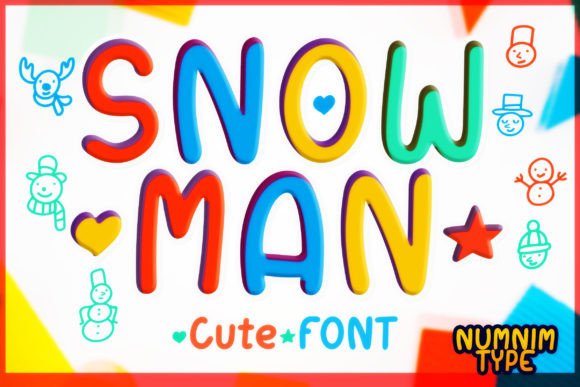
Prepare to be enchanted by Snow Man Font, a script font that will transform your Christmas card creations into whimsical masterpieces. This charming handwritten font dances across the page with playful characters that will spread joy and holiday cheer.
Snow Man is not just a font; it's a gateway to a winter wonderland of creative possibilities. Picture your Christmas cards adorned with heartwarming messages, each letter a delicate snowflake dancing across the page. Imagine mugs adorned with festive designs, their surfaces transformed into a canvas for your holiday greetings. The possibilities are endless.
But don't limit Snow Man to the holiday season alone. Its versatility knows no bounds. Unleash your creativity on stickers, adding a touch of whimsy to your planners and journals. Design t-shirts that will spread festive cheer all year round. Create eye-catching ornaments that will adorn your tree with unique personality.
Snow Man Font is more than just a collection of letters; it's a tool for expressing your creativity, sharing your holiday spirit, and spreading joy. Its charming aesthetic and playful nature will make your designs stand out from the crowd.
So embrace the magic of Snow Man Font and embark on a creative journey that will fill your Christmas with warmth and wonder. Let your imagination soar as you craft unique and memorable designs that will bring smiles to faces and make this holiday season truly unforgettable.